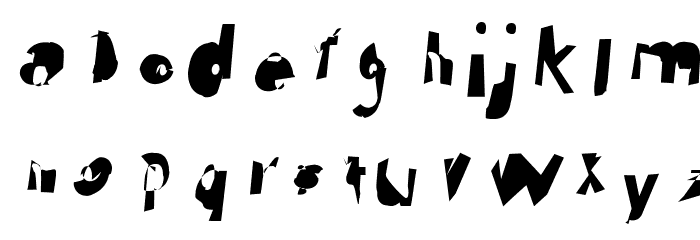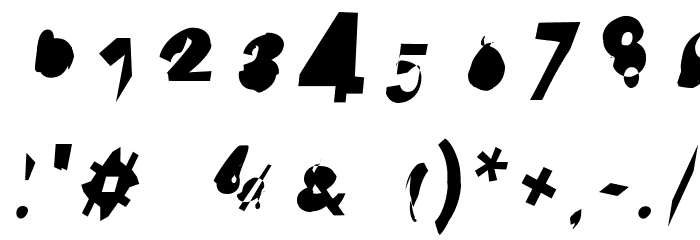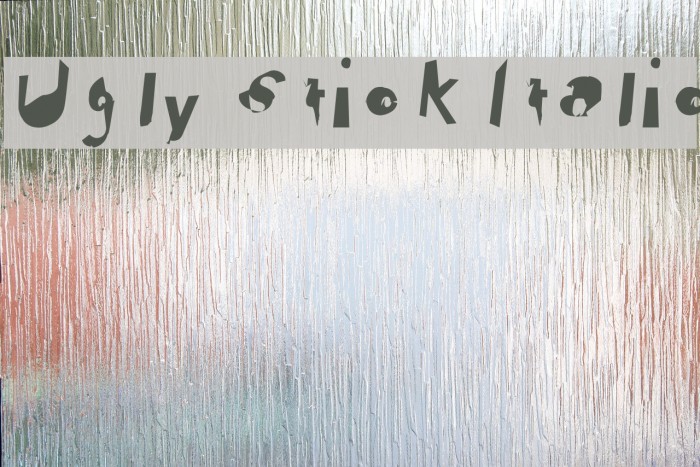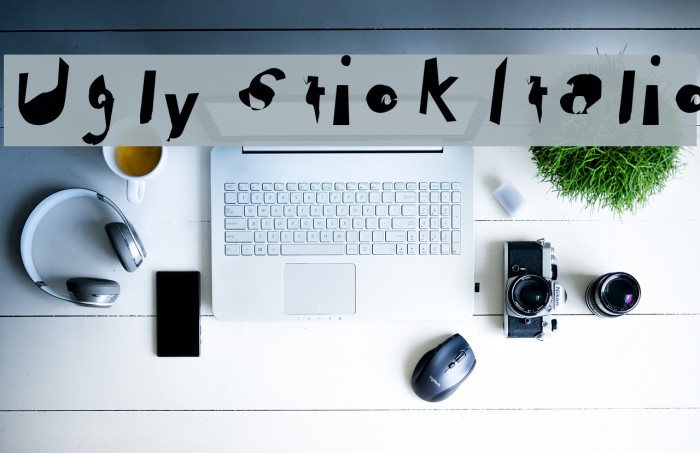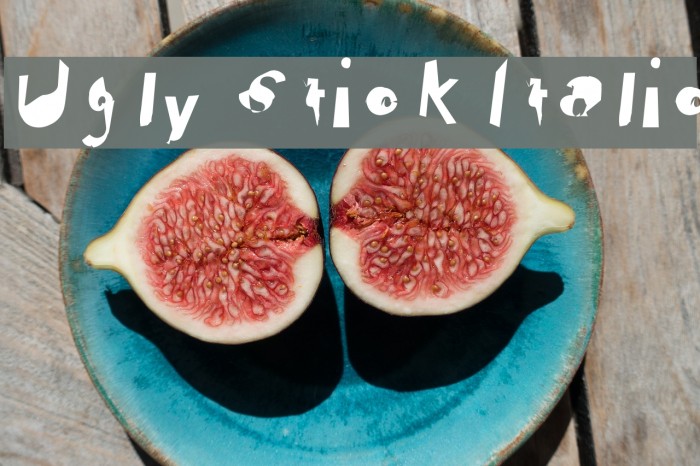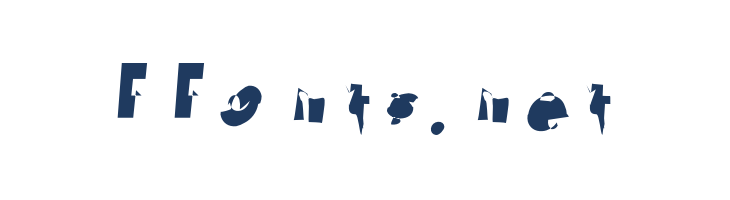
Ugly Stick Italic Font
This font features a highly irregular and distorted style, with each character appearing as if it has been torn or cut from paper. The letters are bold and italicized, giving them a dynamic and chaotic appearance. The uppercase and lowercase letters maintain a consistent level of distortion, creating a cohesive yet unpredictable look. The numbers and special characters follow the same design principles, ensuring uniformity across the font. This font's unique style makes it stand out, with its jagged edges and uneven shapes adding to its distinctive character.
A bold, italicized font with a chaotic, torn-paper appearance.
- Proposed Projects: Ideal for projects requiring a bold, unconventional look, such as album covers, edgy posters, or avant-garde branding.